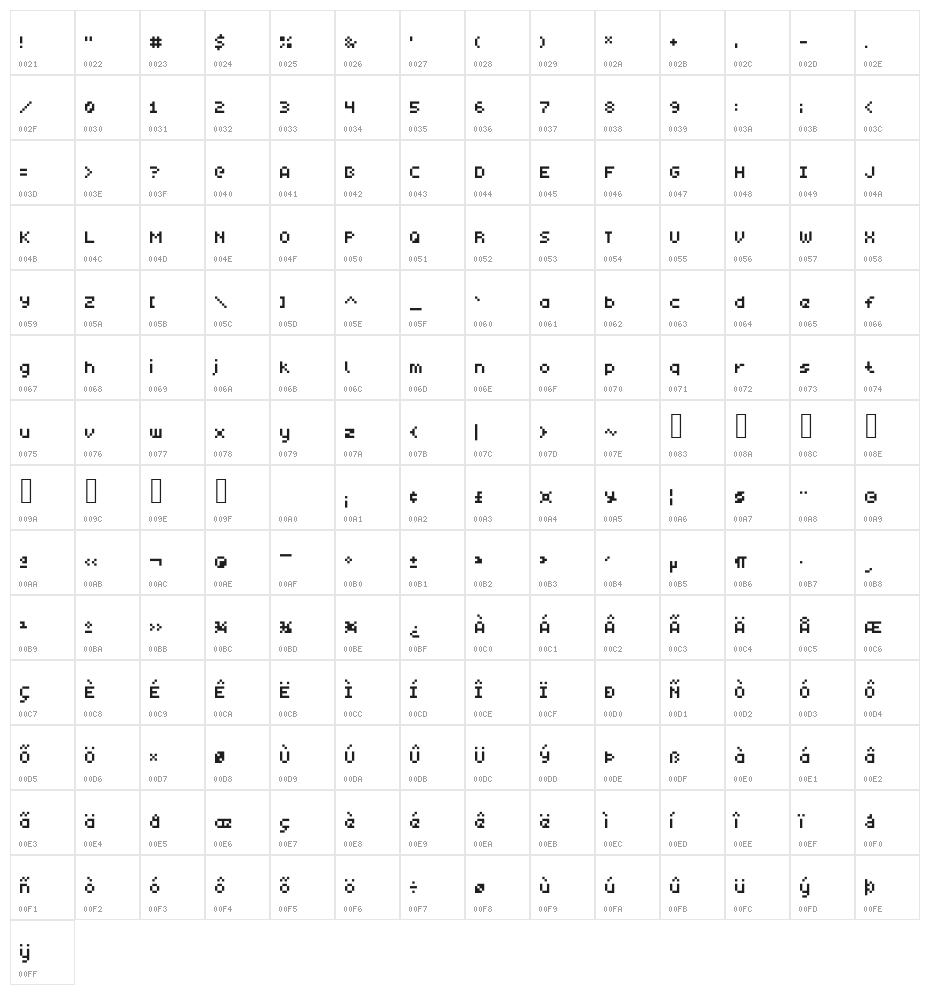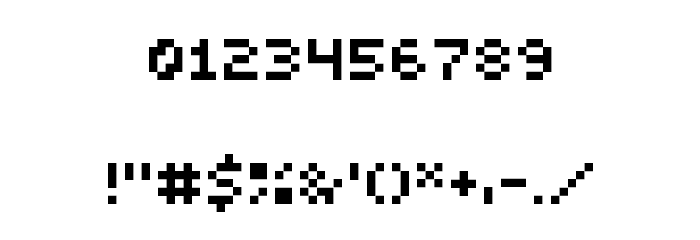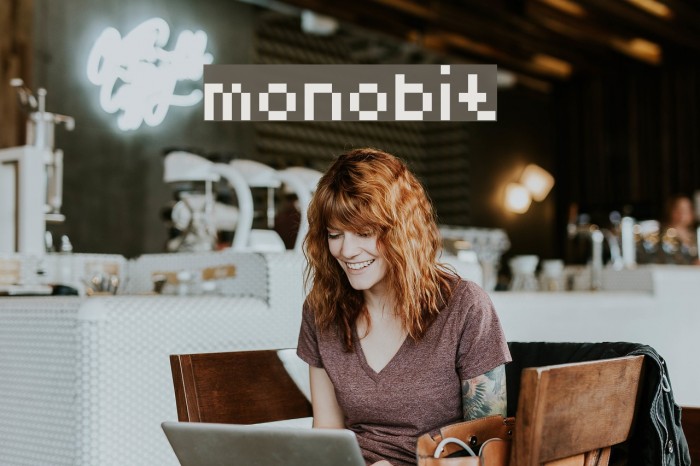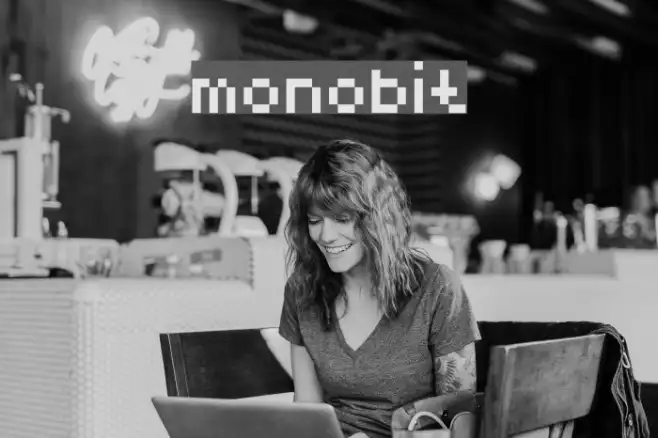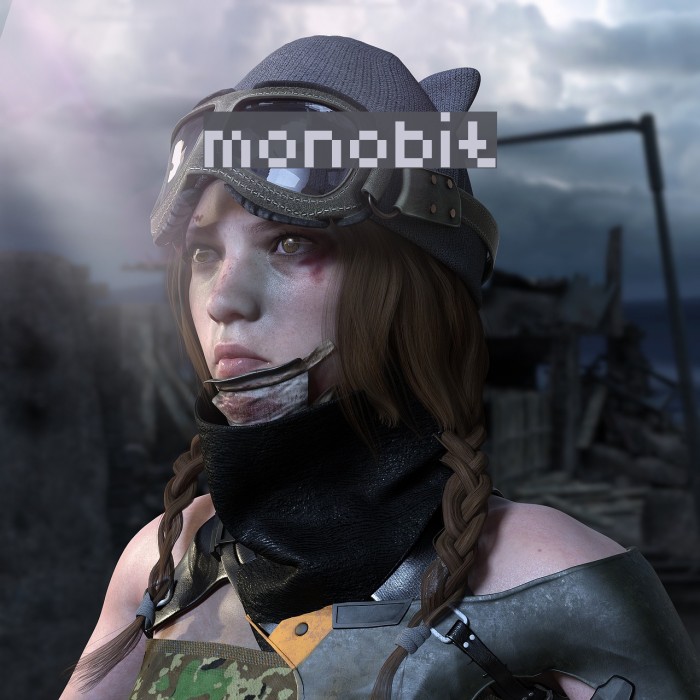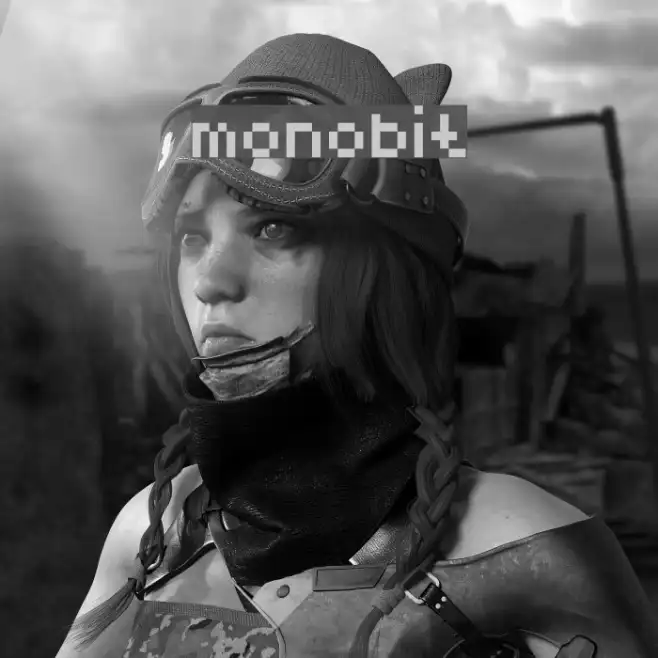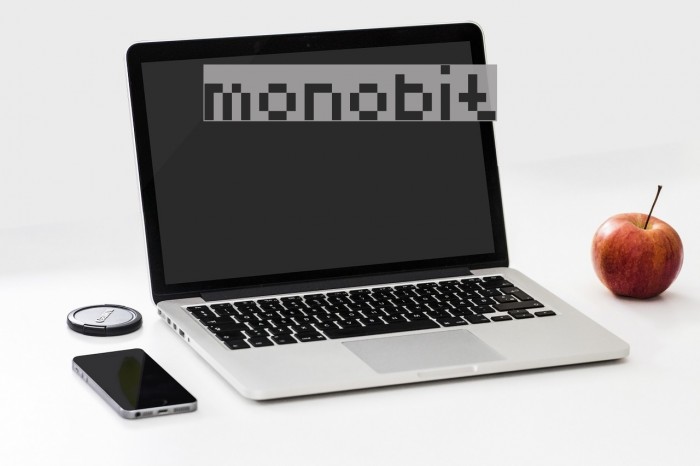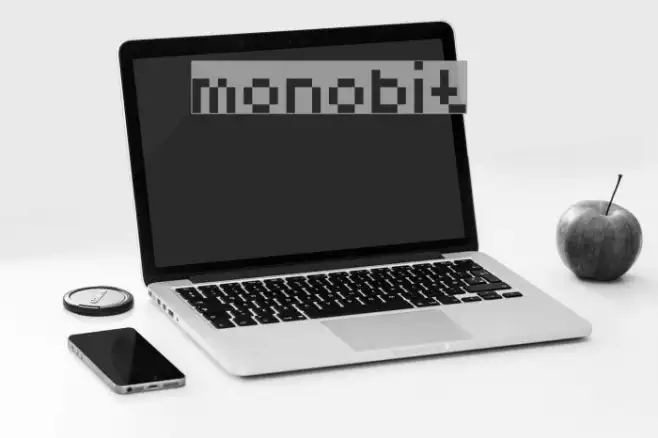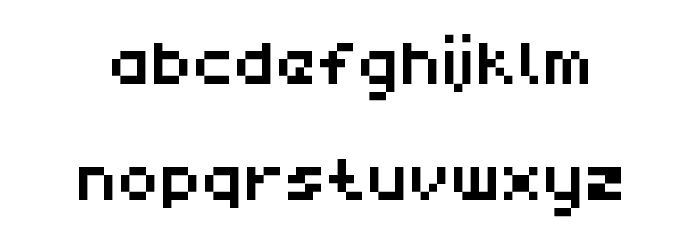
monobit Font
monobit Description
This font features a pixelated, monospaced design reminiscent of early computer and video game graphics. Each character is constructed with a uniform grid-like structure, giving it a distinctly retro and digital aesthetic. The uppercase and lowercase letters maintain consistent height and width, contributing to a blocky and geometric appearance. The numerals and special characters follow the same design principles, ensuring a cohesive look across all glyphs. This font's simplicity and clarity make it highly legible, even at smaller sizes, while its nostalgic style evokes a sense of classic computing.
| Use Case | Headlines, Logos, Digital displays |
| Proposed Projects | Ideal for retro-themed designs, video game graphics, coding displays, and digital art projects. |